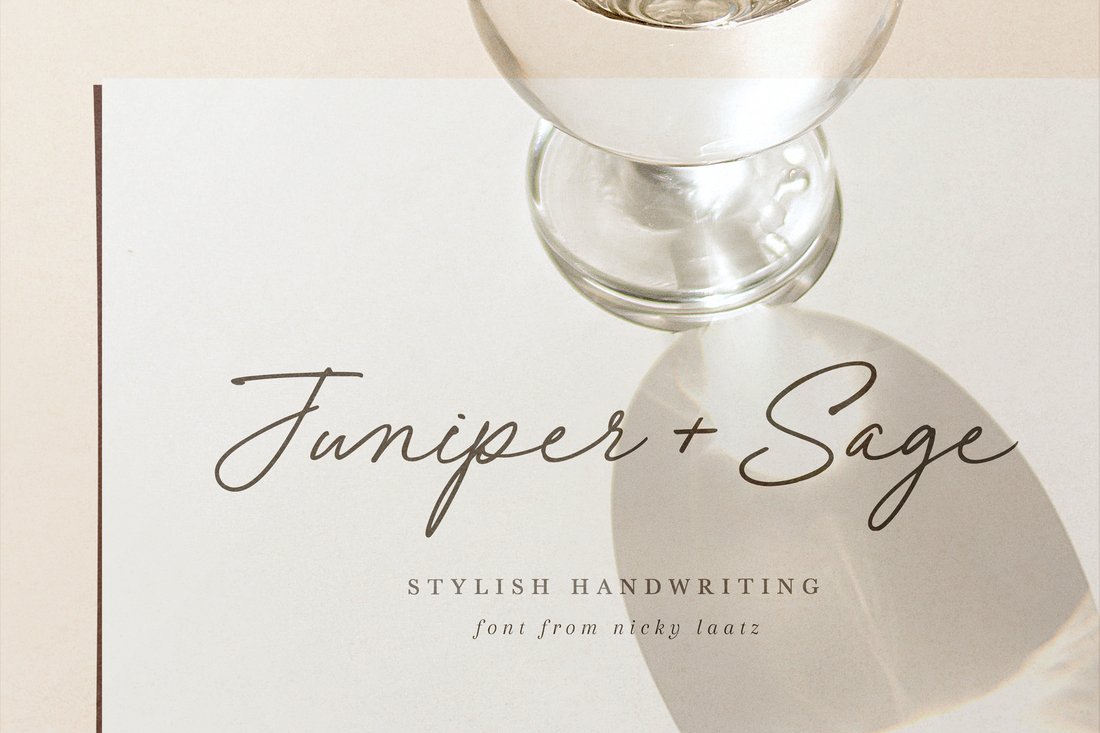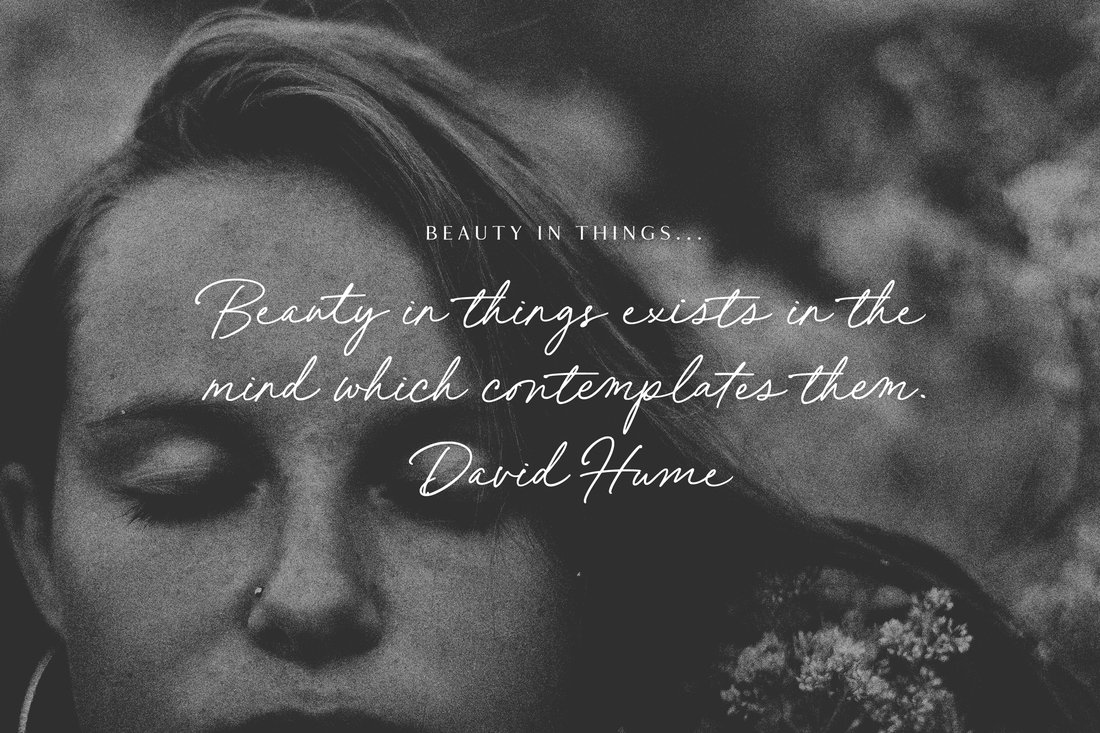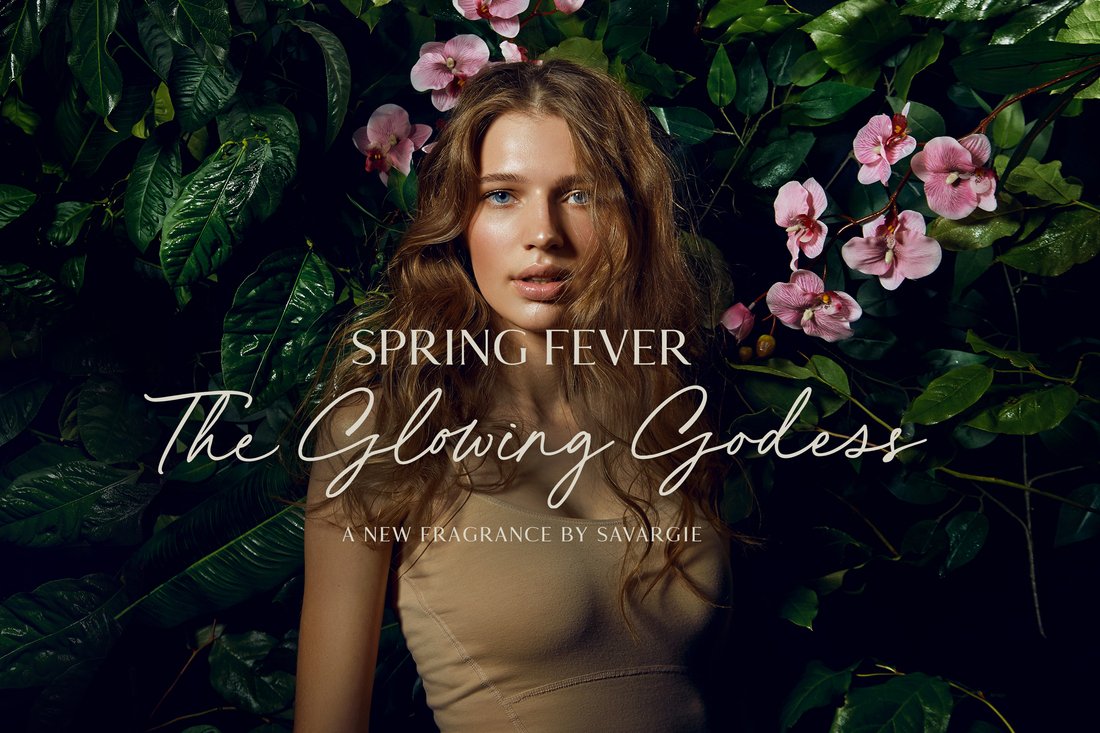
Juniper and Sage Font
Juniper and Sage has 3 subtle variants - each adds a different feel due to their different slants. Upright being slightly more upbeat and casual and slanted being more elegant.
Juniper and Sage is a ligature based script - designed with a large selection of Opentype double-letter ligatures - making. the script look more natural and less like a font.